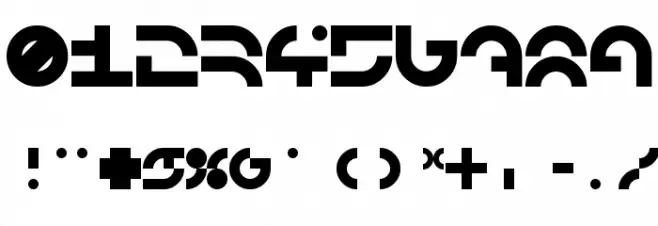
LDR MANUFACTURE Regular Font
LDR MANUFACTURE Regular Description
This font features a bold and geometric design with a futuristic aesthetic. The characters are constructed with thick, uniform strokes and a consistent circular motif that gives it a unique and modern look. The uppercase and lowercase letters share similar design elements, creating a cohesive appearance. The numbers and special characters maintain the same stylistic approach, ensuring uniformity across all glyphs. This font's distinct style makes it stand out, ideal for projects that require a strong visual impact.
A bold, geometric font with a futuristic and modern aesthetic from Uncategorized fonts.
- Proposed Projects: Ideal for branding, logos, headlines, and posters where a strong, modern look is desired.